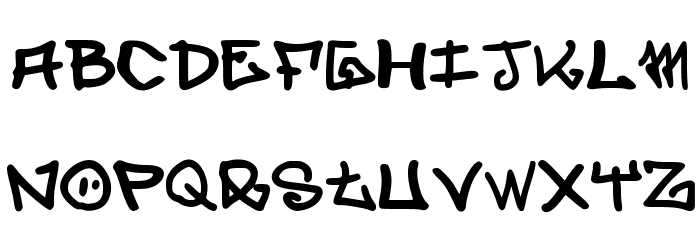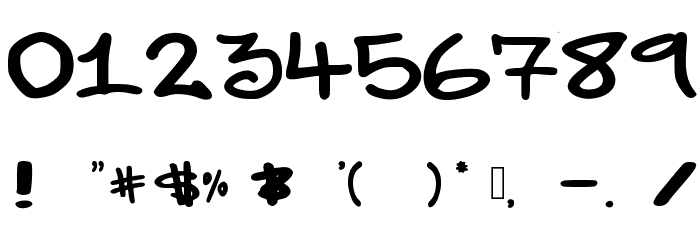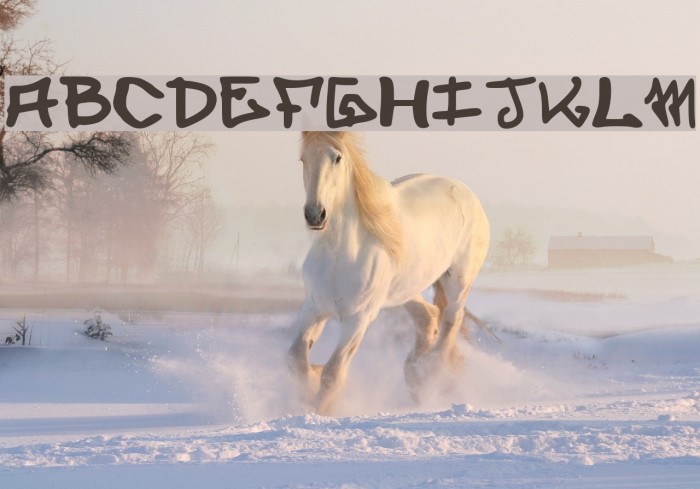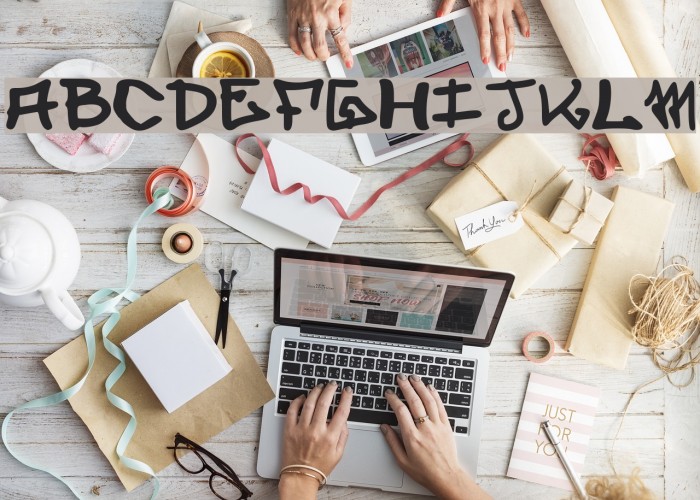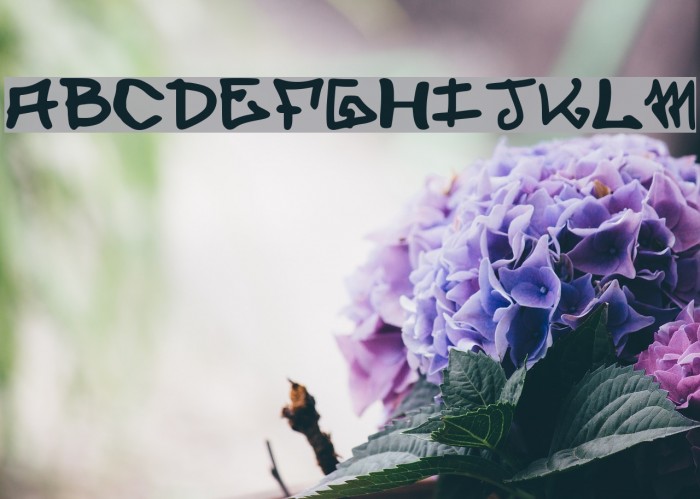
elevenoonehand1 Font
This font exhibits a playful and whimsical style, characterized by its bold, irregular strokes and unique character shapes. The letters have a hand-drawn, cartoonish appearance, with varying line thickness that adds to its dynamic and lively feel. The uppercase and lowercase letters maintain a consistent style, with quirky elements such as the smiley face incorporated into the letter 'O'. The numbers and special characters follow the same playful design, making the font suitable for creative and informal applications. Its distinctiveness makes it stand out, capturing attention with its fun and energetic vibe.
A playful, hand-drawn font with bold, irregular strokes and a whimsical style.
- Proposed Projects: Ideal for children's books, comic strips, playful branding, and creative posters.
- Overall Style: Playful, Whimsical, Cartoonish